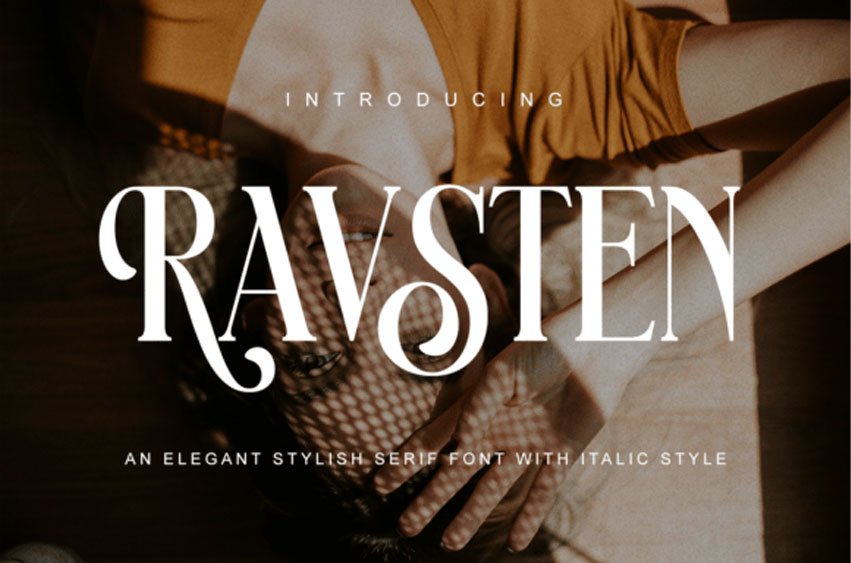
Ravsten Regular Font is an elegant serif font that exudes timeless sophistication with a modern twist. Its refined letterforms feature high-contrast strokes, graceful curves, and subtle decorative details that make every word feel luxurious.
With an italic style that adds a touch of fluidity and charm, Ravsten is perfect for high-end branding, fashion editorials, wedding invitations, magazine layouts, and sophisticated logo designs.
Its versatility allows it to shine in both bold headlines and refined body text, making it a designer’s go-to for projects that demand style, class, and a polished aesthetic. Bring a sense of elegance and artistry to your creative work with Ravsten.